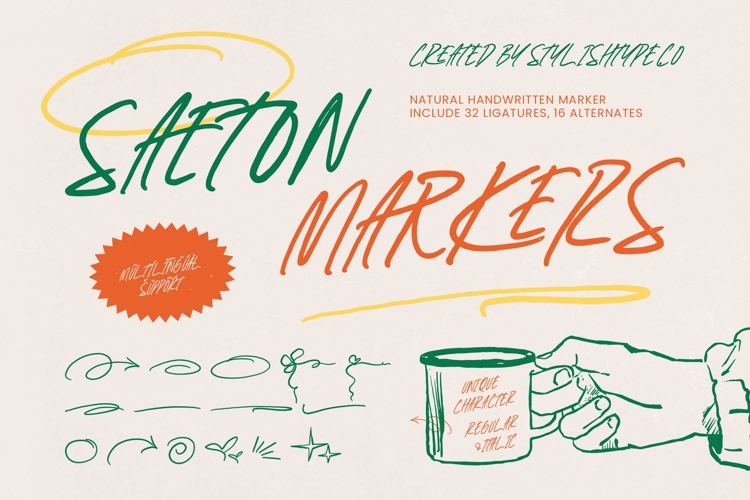
Saeton Markers Natural Handwritten
Saeton Markers – Natural Handwritten
Elevate your creative projects with the raw, high-energy aesthetic of Saeton Markers – Natural Handwritten. This authentic marker font captures the organic flow of hand-lettered ink, offering a modern street-style vibe that is both edgy and professional. Designed to provide a truly bespoke appearance, Saeton Markers – Natural Handwritten features a wide array of ligatures and alternates that ensure every word looks unique and spontaneous.
In today’s interconnected design landscape, global accessibility is essential for any professional typeface. With its extensive multilingual support, Saeton Markers – Natural Handwritten adapts seamlessly across global markets, making it incredibly versatile for international projects. This comprehensive glyph coverage allows designers to maintain a consistent brand identity across different languages without sacrificing the expressive personality that Saeton Markers – Natural Handwritten brings to the table.
Discover the perfect balance of grit and grace, as Saeton Markers – Natural Handwritten is the ideal typographic solution for high-impact visual communication. This font is perfect for urban fashion branding, social media graphics, packaging design, and editorial headlines where a human touch is required. Whether used for luxury street apparel or dynamic event posters, Saeton Markers – Natural Handwritten delivers a commanding presence that instantly grabs attention and builds an immediate connection with the audience.